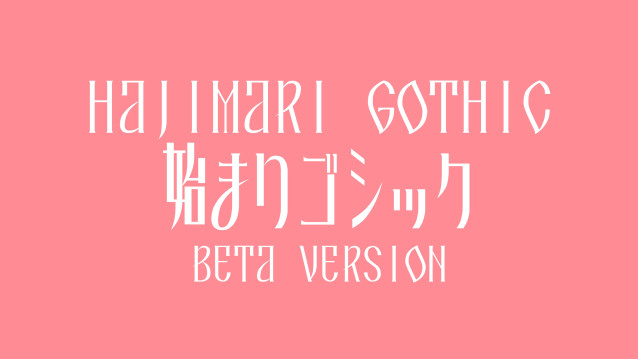
Hajimari Gothic Font is a simple and modern display font suitable for quotes, logos, headings, titles, and many more. Use it on any of your creative projects, and your designs will become outstanding!
Hajimari Gothic Font
| Classification: | Blackletter / Gothic Fonts, Display Fonts, Modern Fonts |